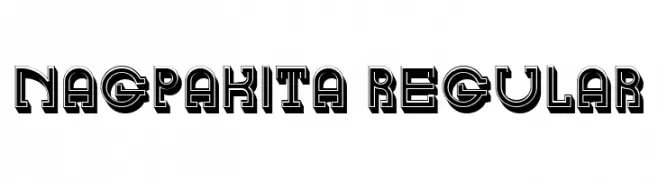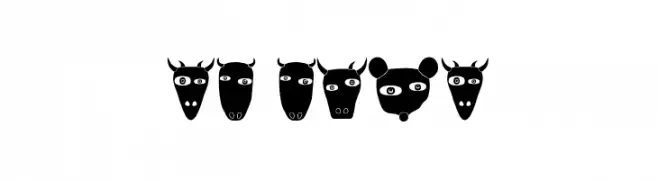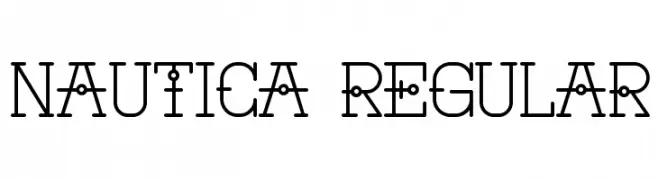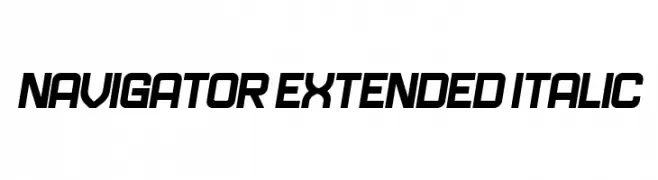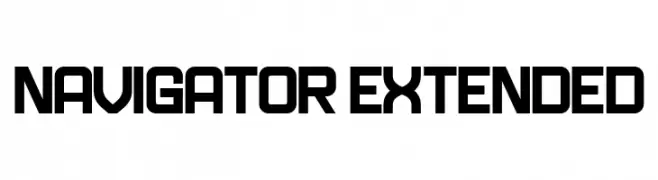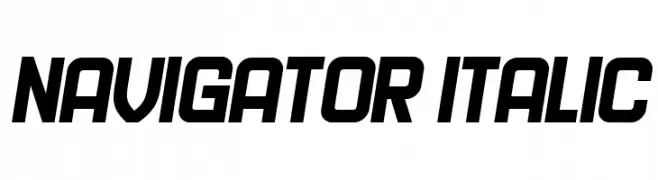
A bold, three-dimensional font with geometric shapes and a modern feel.
A bold, geometric font with a modern, angular design.
A decorative and intricate font with swirling, textured characters.
A playful decorative font featuring unique animal face illustrations for each character.
A bold, 3D italic font with a decorative and dynamic style.
A bold, 3D font with a vintage, shadowed style.
A decorative font with circular motifs and geometric precision.
A bold, geometric font with a modern, industrial style.
A bold, extended, and italic font with a modern, dynamic style.
A bold, italic font with a modern and dynamic style.